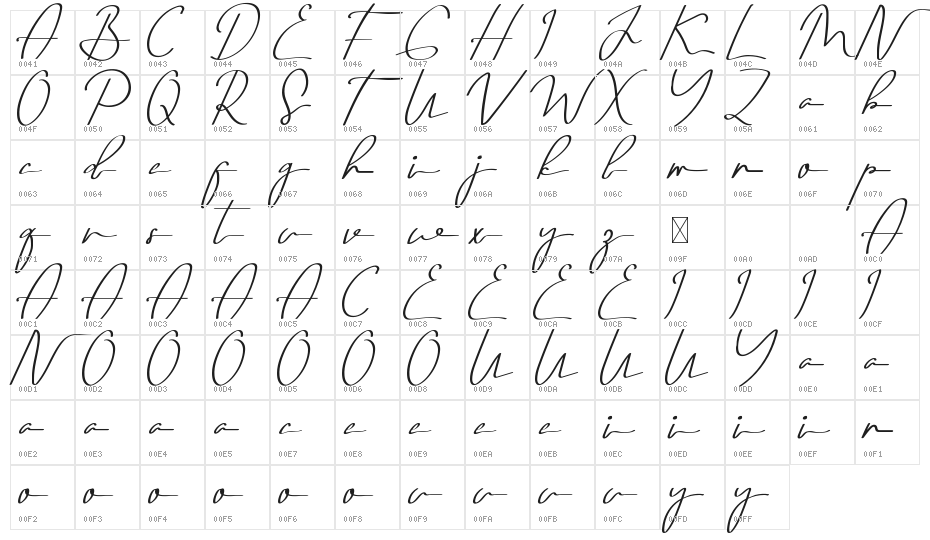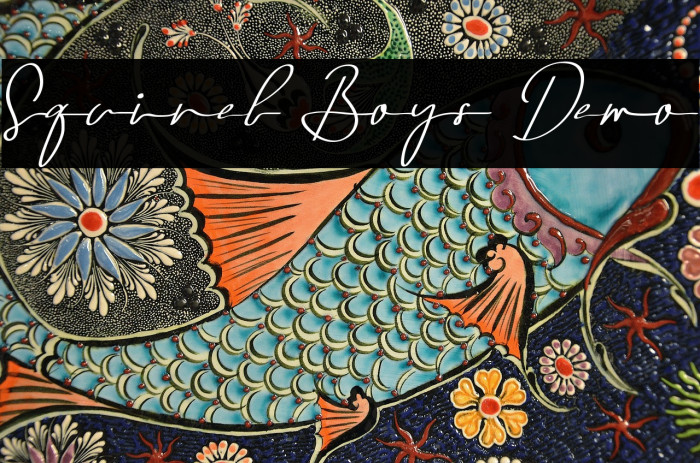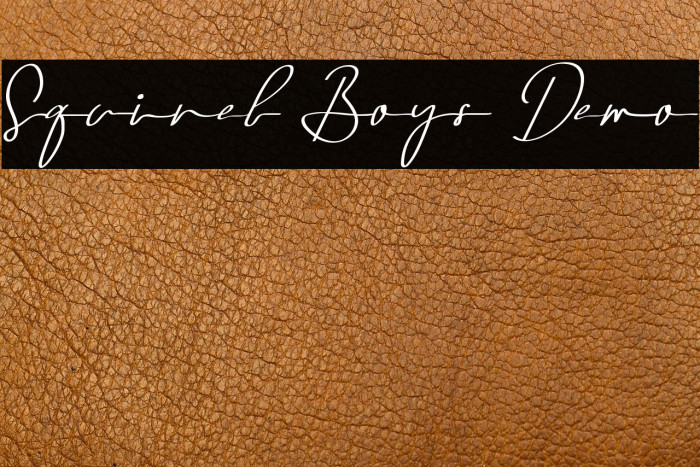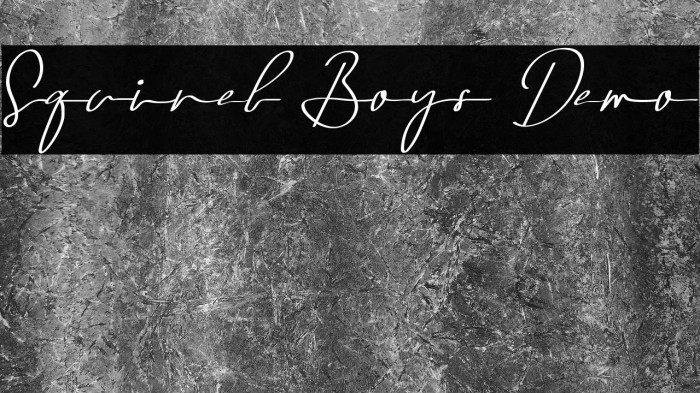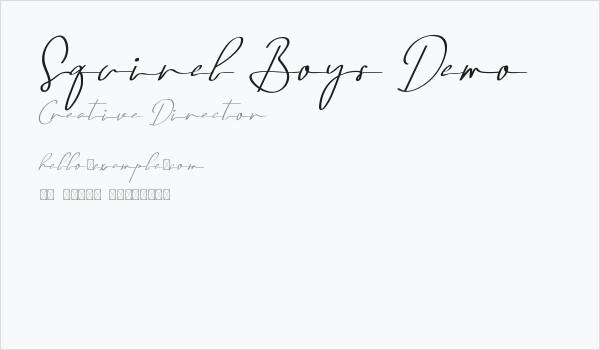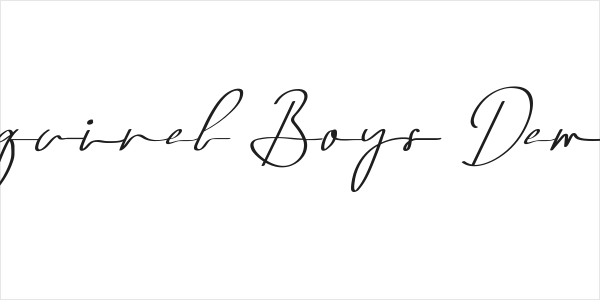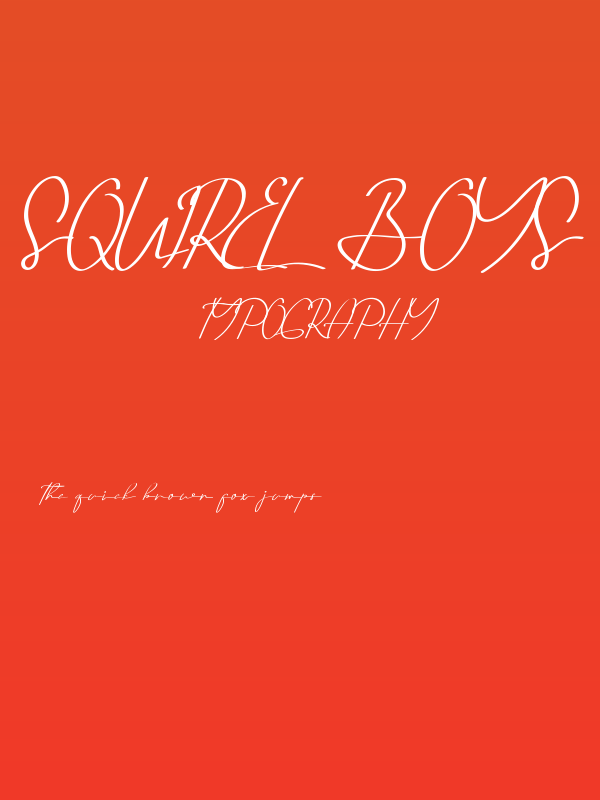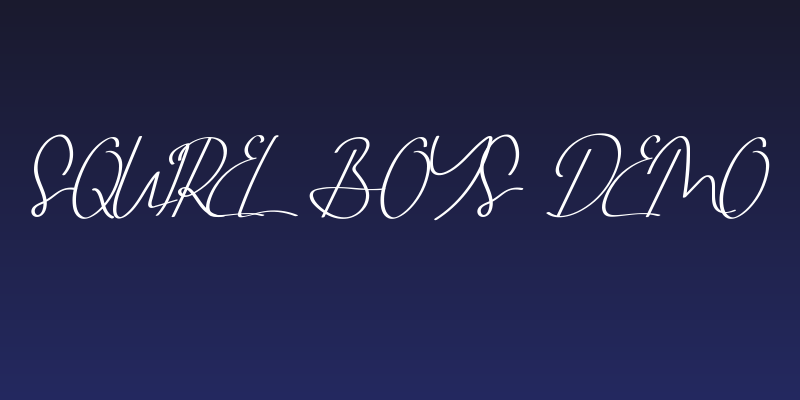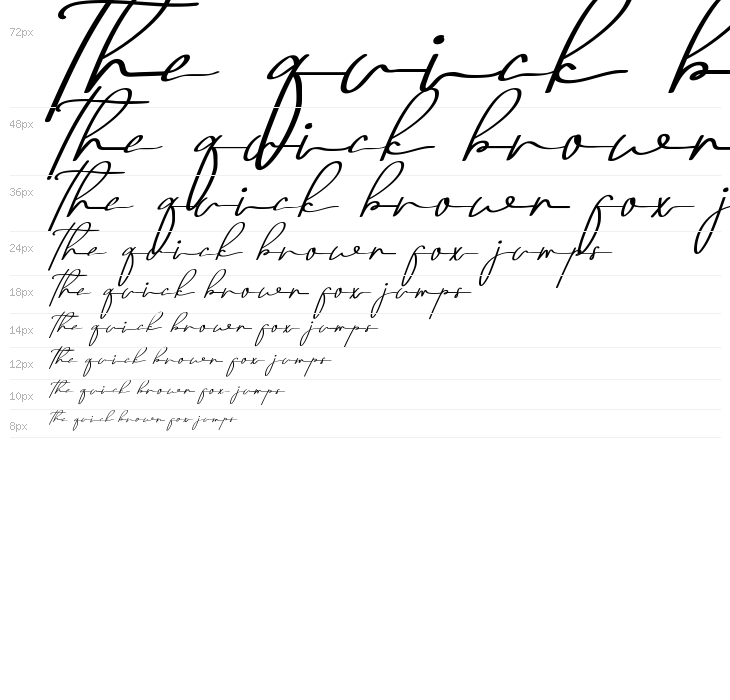
Squirel Boys Demo Font
Squirel Boys Demo Description
This font exudes a sense of elegance and fluidity, characterized by its cursive, handwritten style. The letters are interconnected with smooth, flowing strokes that mimic the natural movement of handwriting. The uppercase letters are slightly more elaborate, with extended loops and swirls, while the lowercase letters maintain a consistent, graceful flow. The overall appearance is both sophisticated and approachable, making it suitable for a variety of creative projects. The font's design is reminiscent of classic calligraphy, yet it retains a modern touch, making it versatile for contemporary use.